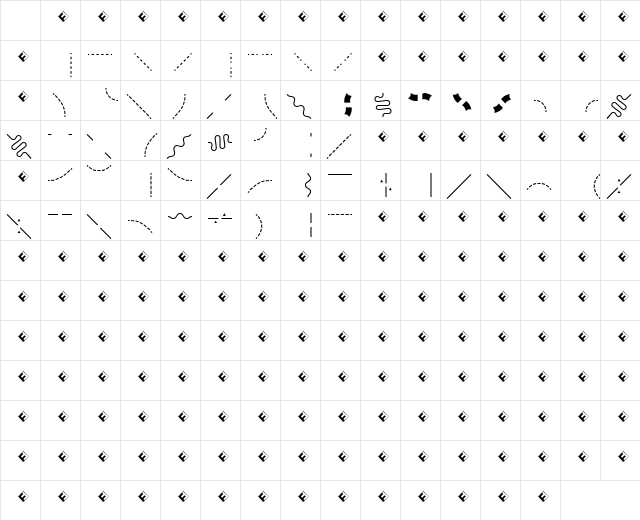
Routes B is a composed and adaptable typeface that performs quietly and consistently across a wide range of design contexts.
This font was published by Hans Reichel, published by FontShop International for the FontFont library. Check the technical specs section for copyright and designer details.